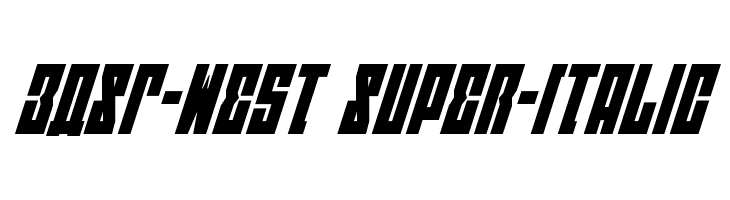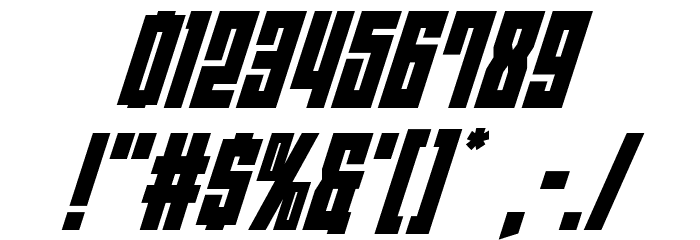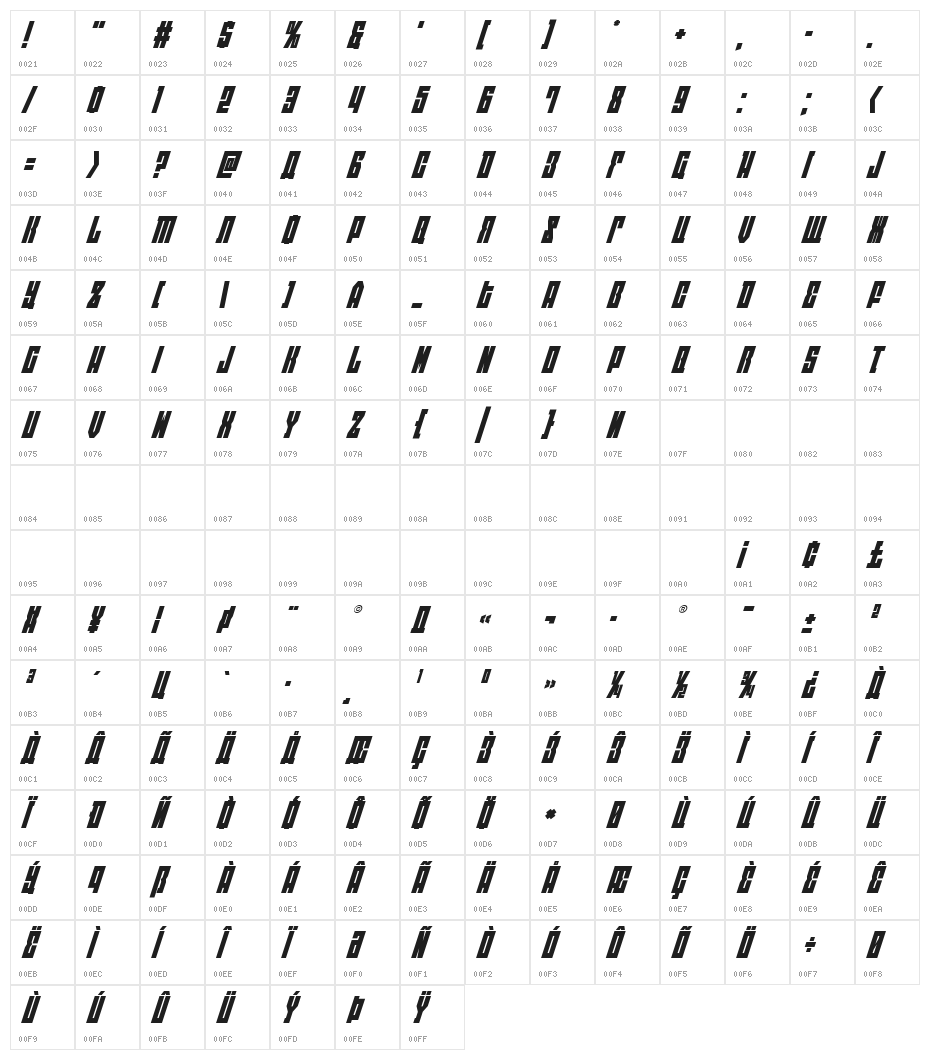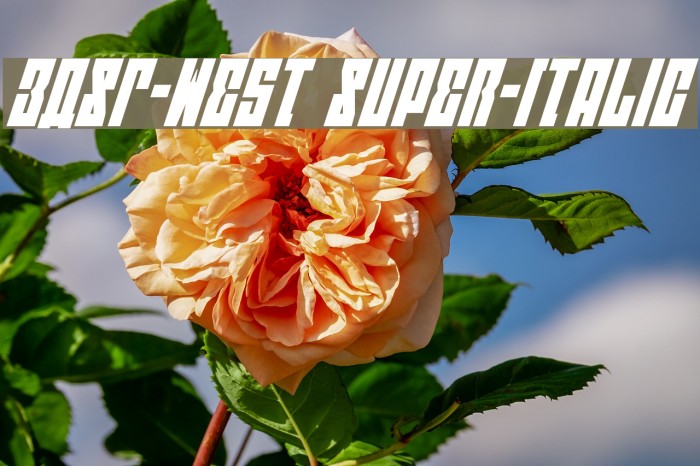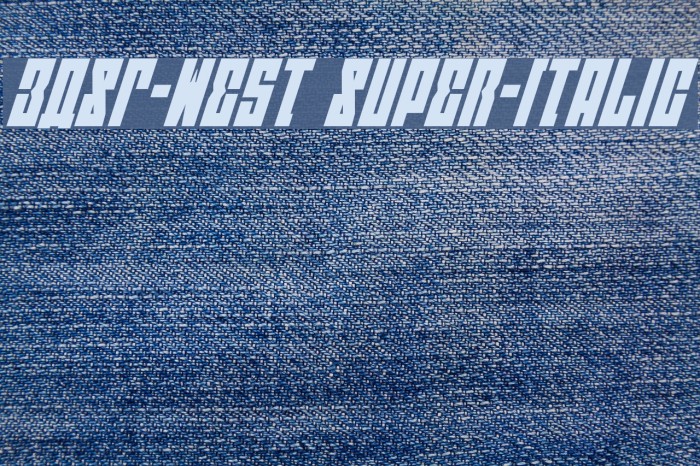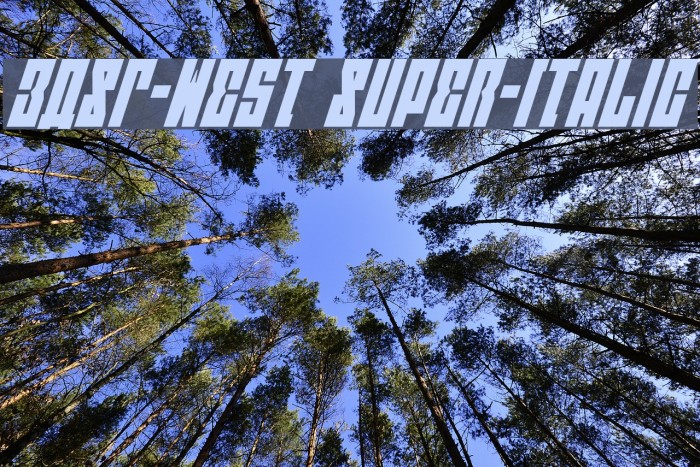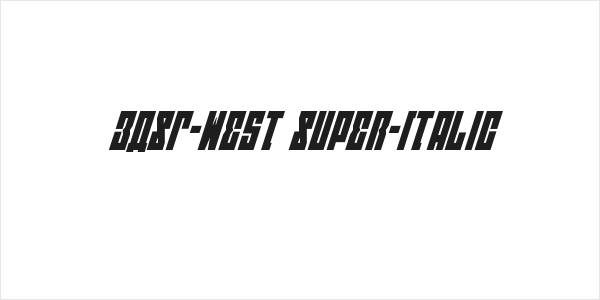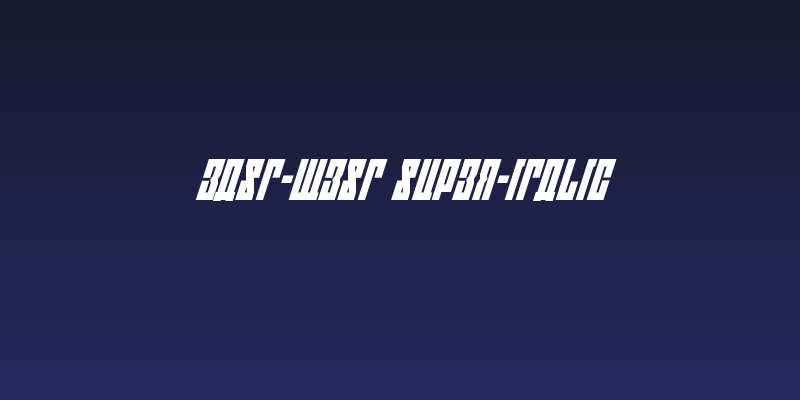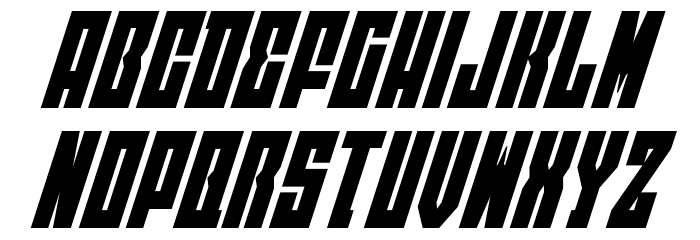
EAST-west Super-Italic Font
EAST-west Super-Italic Description
This font features a bold and dynamic style with a strong italic slant, giving it a sense of motion and energy. The characters are sharply angled with a geometric structure, creating a futuristic and aggressive appearance. The uppercase and lowercase letters maintain a consistent width, contributing to a uniform and cohesive look. The numbers and special characters follow the same angular design, ensuring a seamless integration with the alphabet. The font's bold weight and condensed width make it ideal for impactful headlines and attention-grabbing designs.